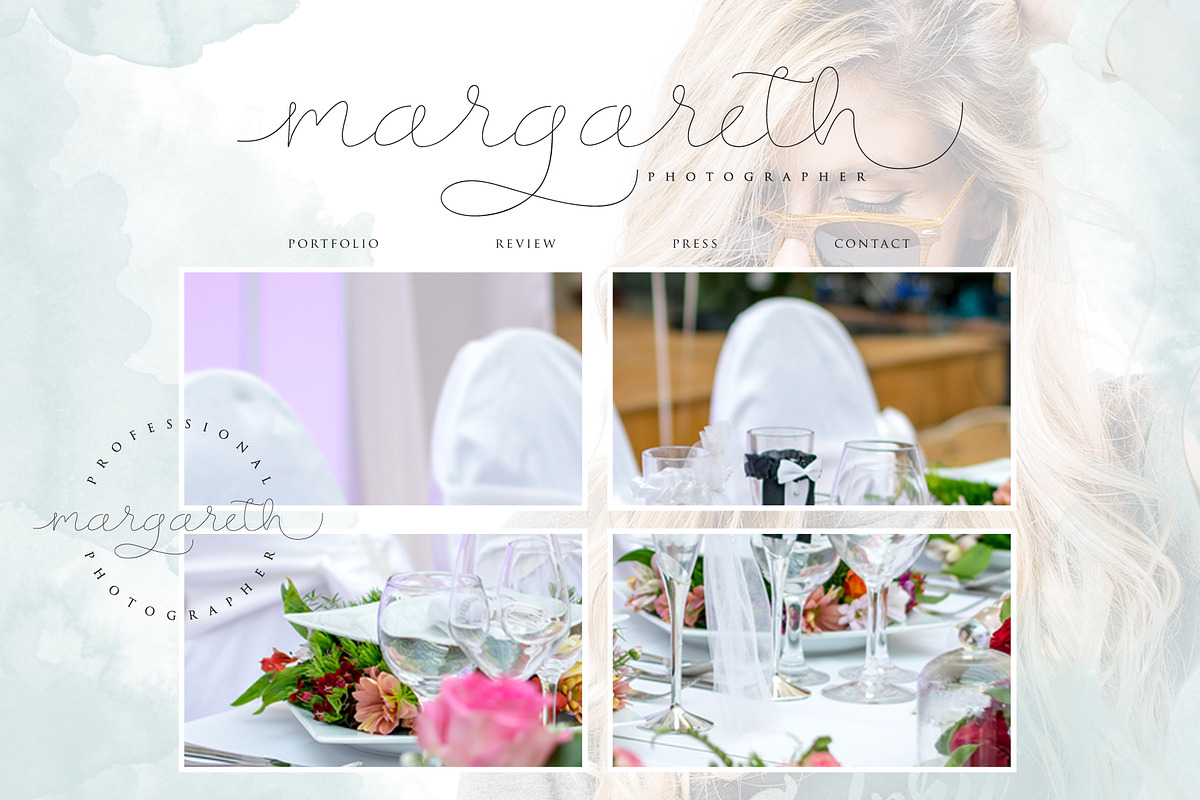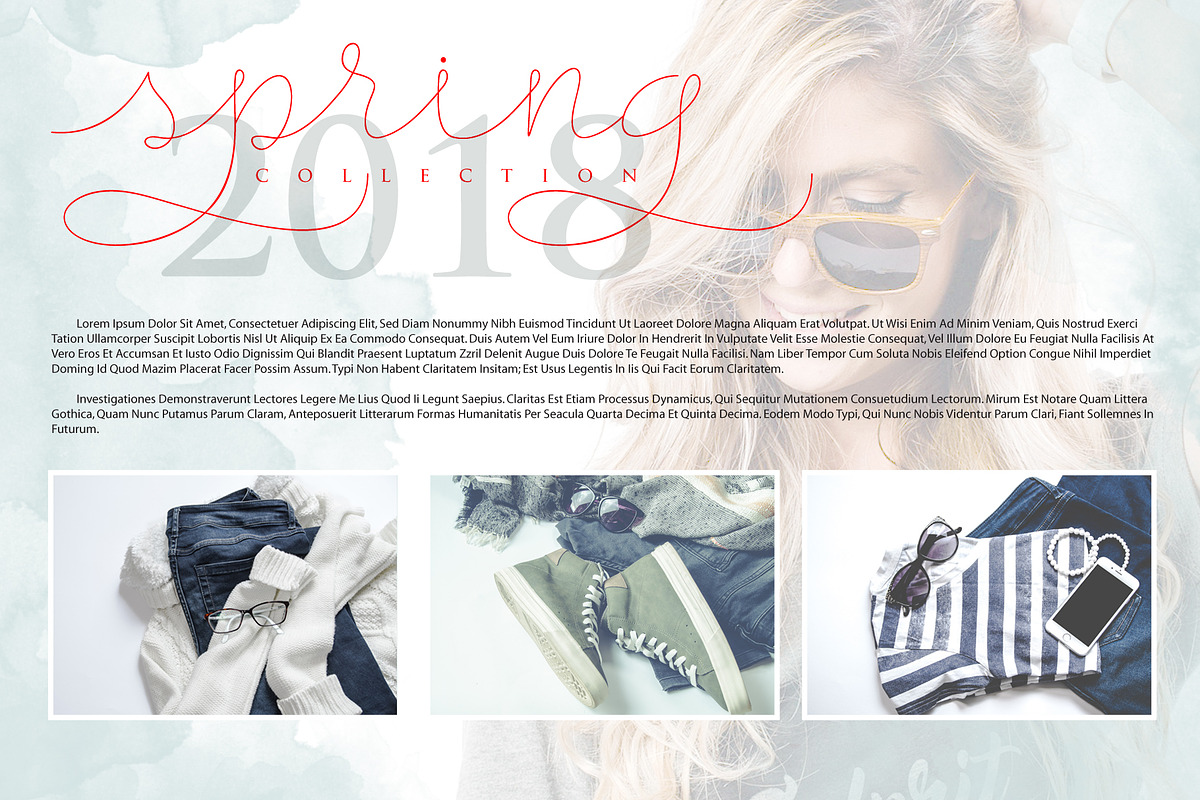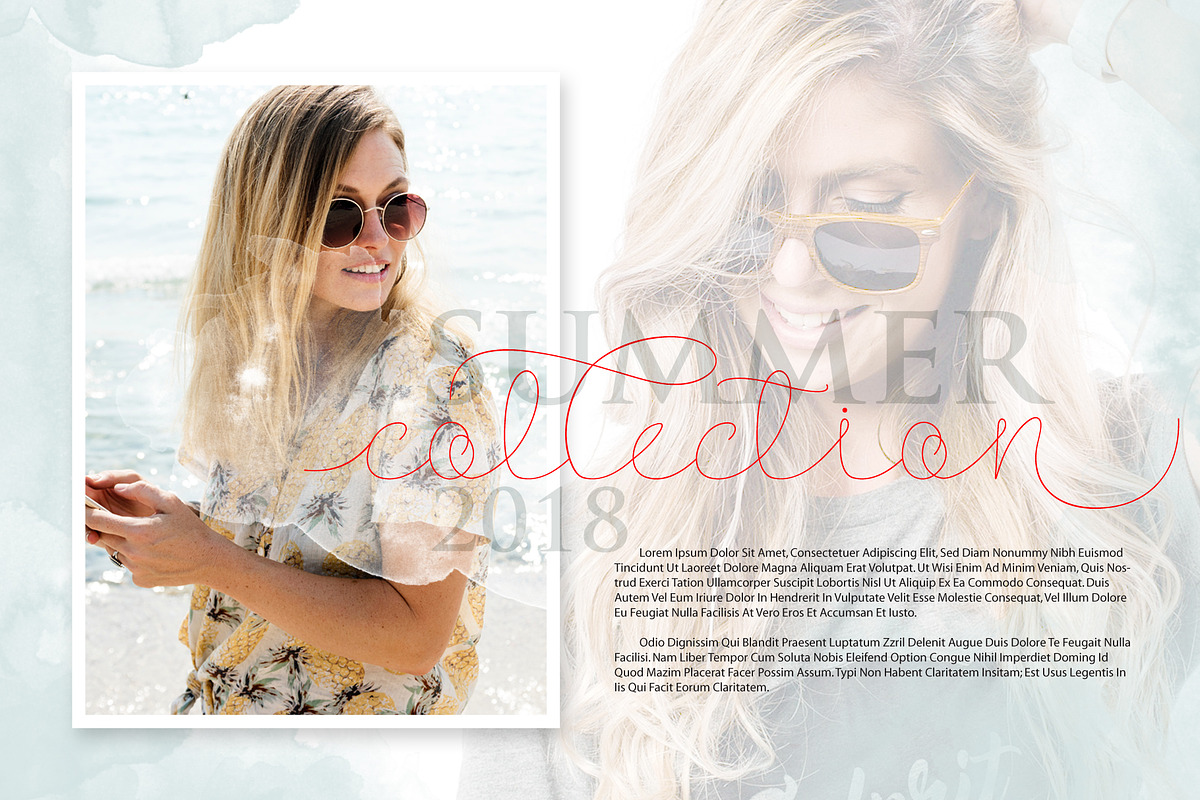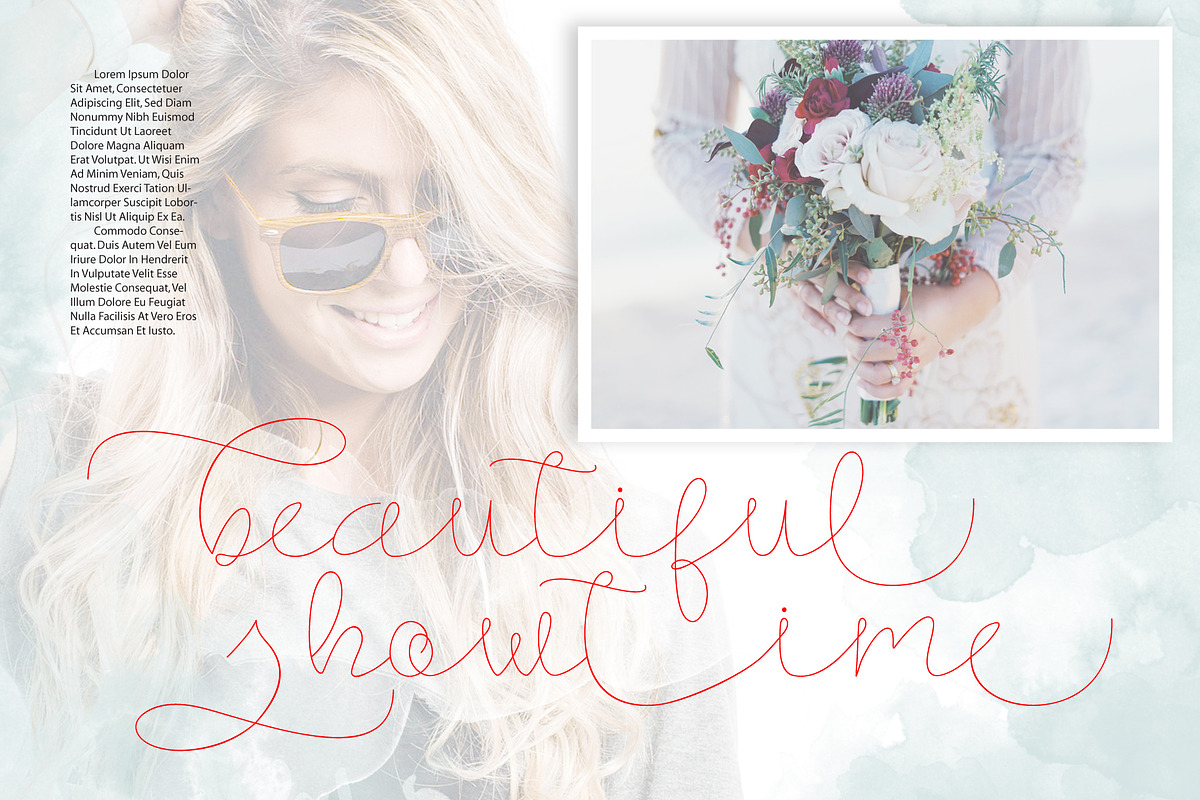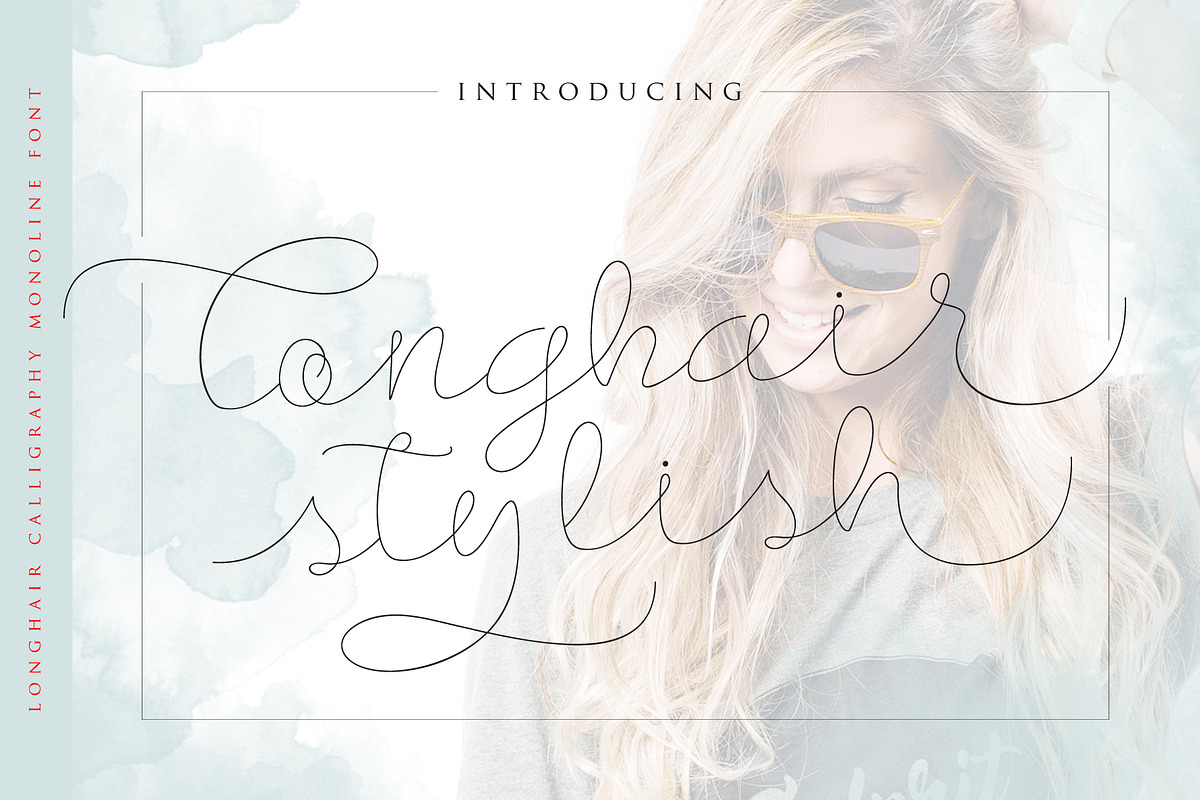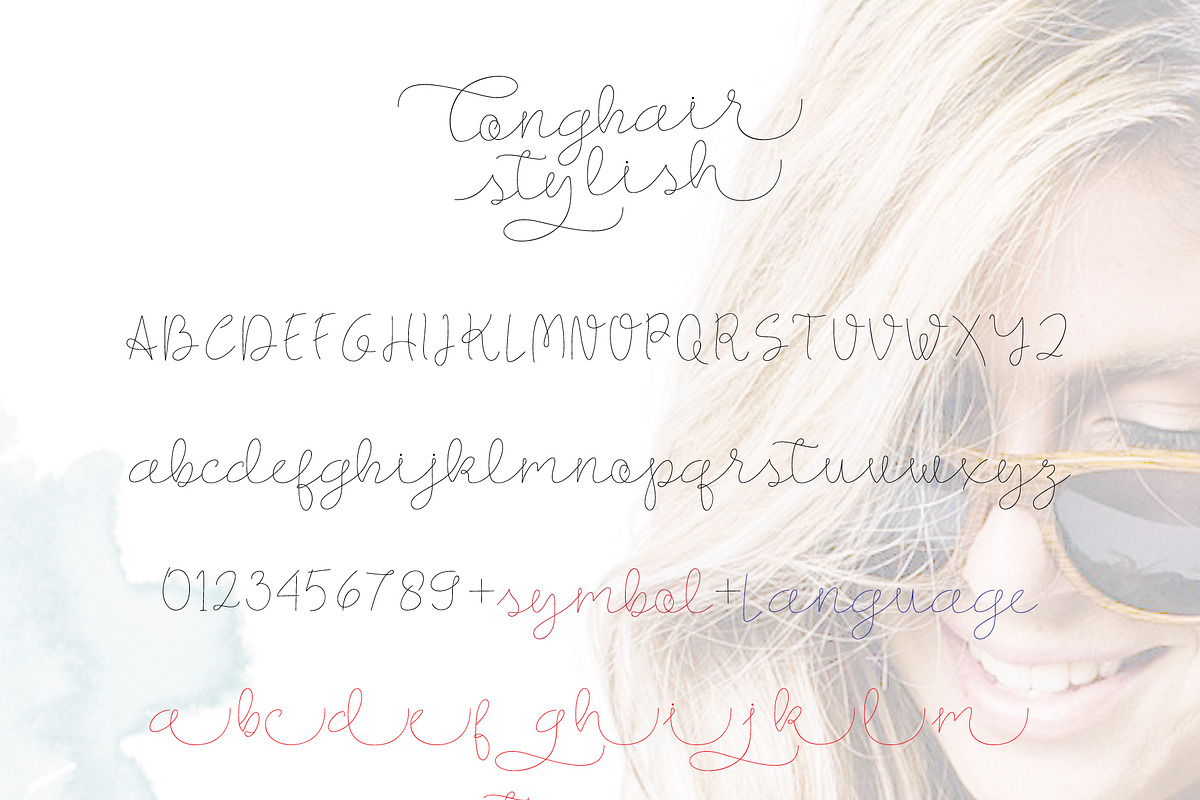
Longhair - Monoline Script Font
Introducing the elegant new Longhair-Monoline Script Font! For those of you who are needing a touch of elegance and modernity for your designs, this font was created for you!
Longhair-Monoline Script Font was built with OpenType features and includes beginning and ending swashes, numbers, punctuation, alternates and it also supports other languages.